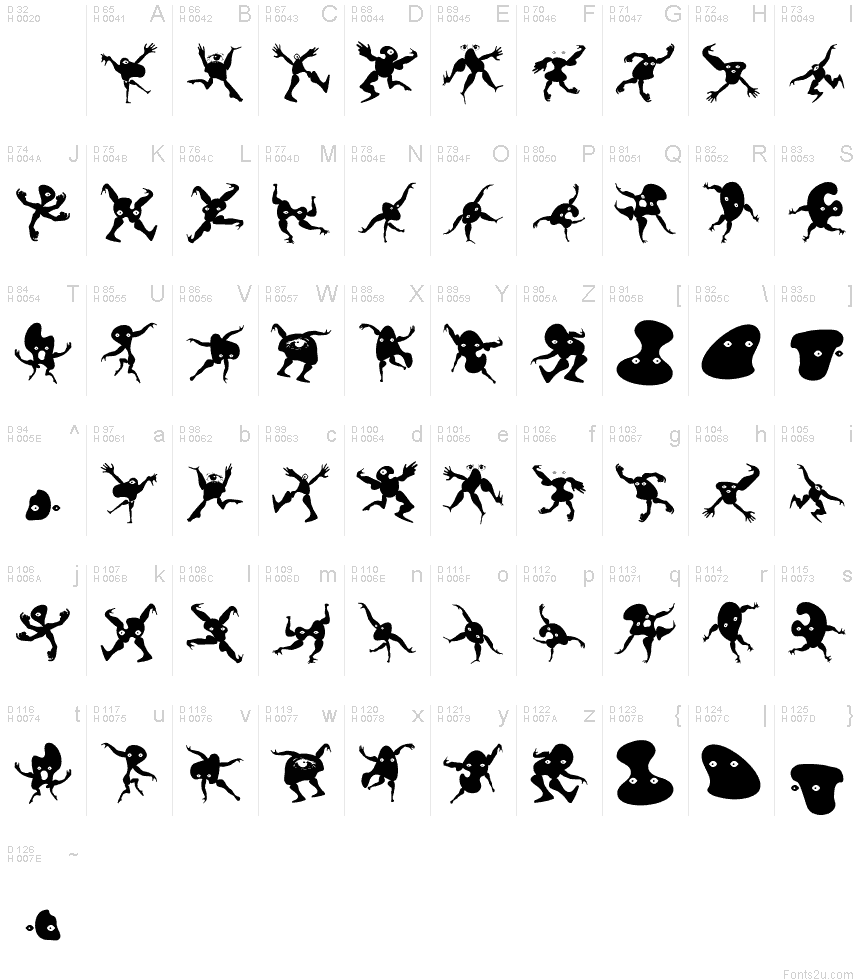
Strange People by Manfred Klein is a free cartoon dingbat font featuring oddball creature silhouettes with rounded, inky bodies, tiny eyes, and wiry limbs. Every figure seems caught mid-prank.
The symbols can act as illustrated mascots in children's publishing or playful branding, and their lively poses also fit game graphics and event posters. The shambling monsters and acrobatic imaginary beings are especially at home in comic fantasy and spooky comedy for younger audiences.